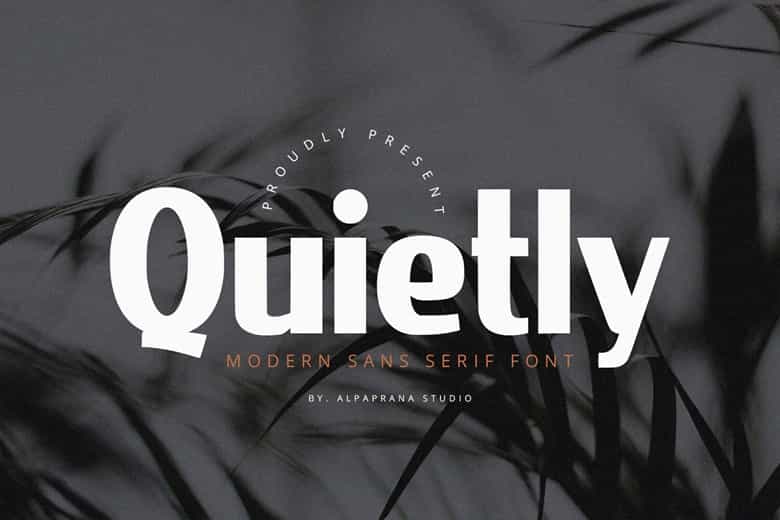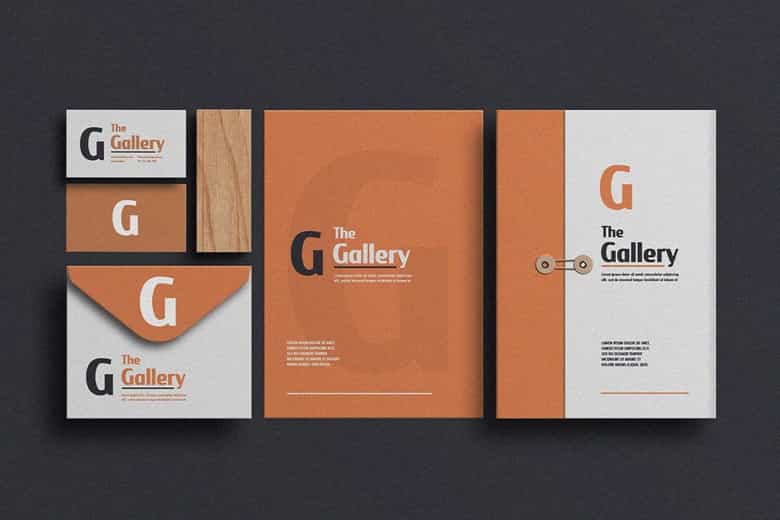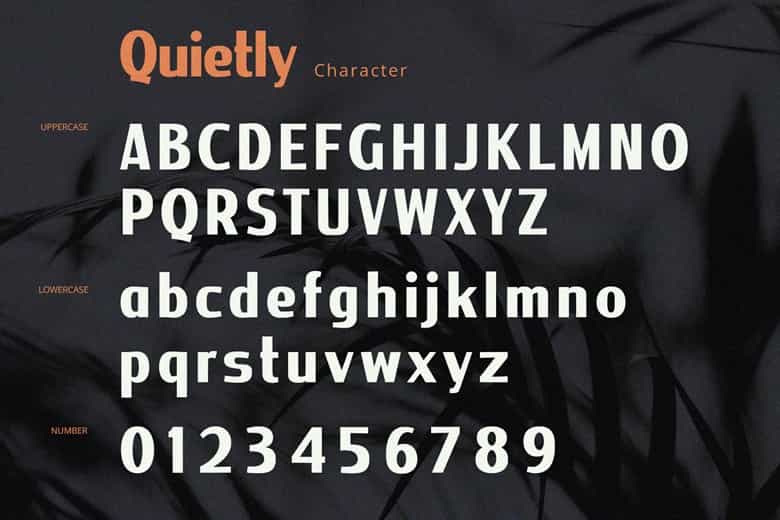
Quietly is clean and minimalistic sans serif typeface with contemporary approach to design with delicate touch. It can be applied for branding, logo design, lettering, logotype, Clothing, poster, magazine, packaging, posters, shopping bags, t-shirts, book covers, photography, special events and other design project.